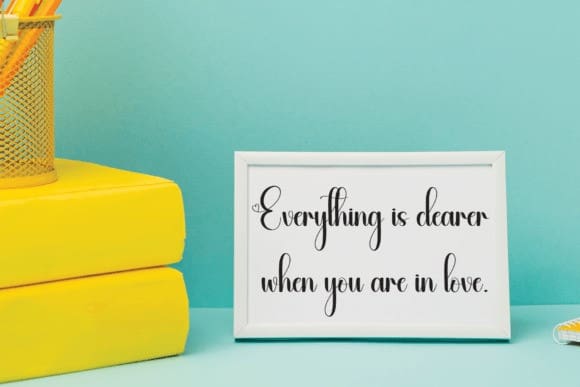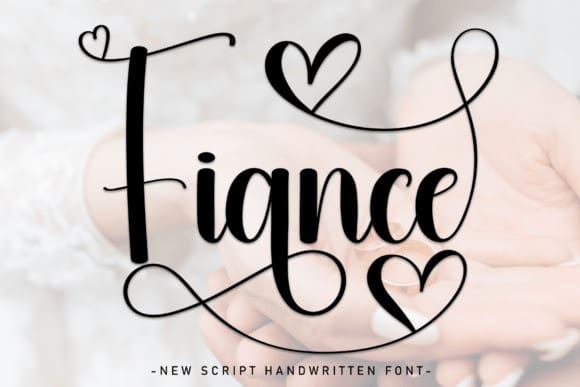
Fiance Script Font
Fiance Script Font is a sweet and friendly handwritten font. Fresh and casual, this font is ideal for writing wedding invitations, cards, or any other design that might need a lovely touch!